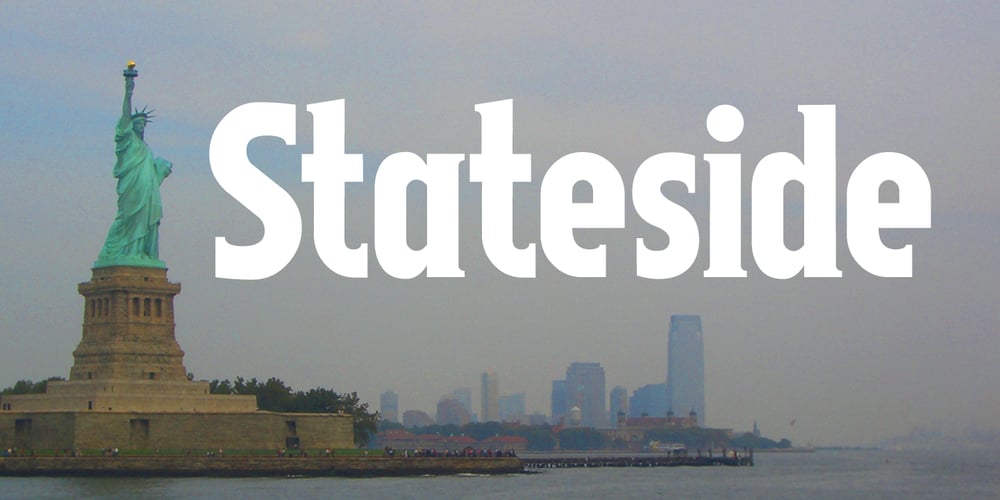
Stateside Font Family was designed by Keith Tricker and published by Studio K. Stateside contains 2 styles and family package options. Stateside is a bold condensed serif with a vintage feel. It has an urban and, I like to think, urbane character which puts me in mind of classic Thirties architecture like the Rockefeller Centre or the Empire State Building. I did consider calling it Rockefeller, but the family might think it a bit of a liberty, and I can’t afford to get into a copyright battle with them!